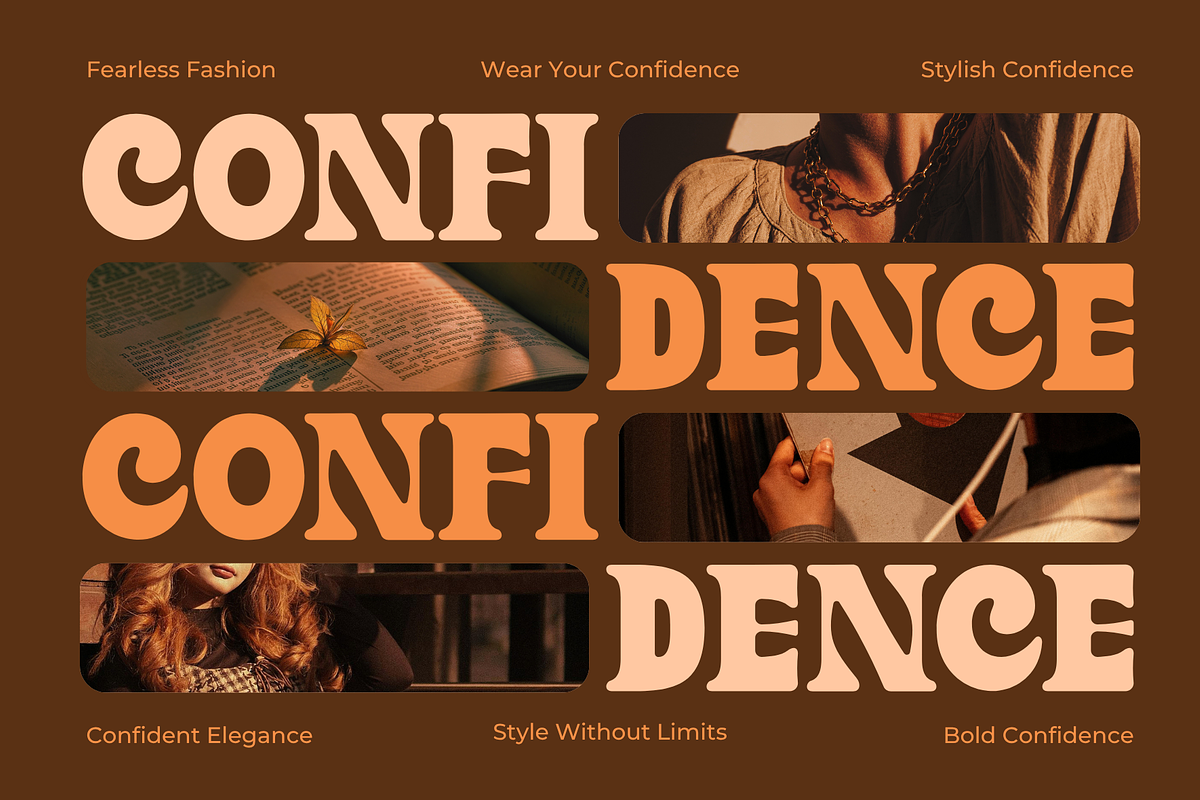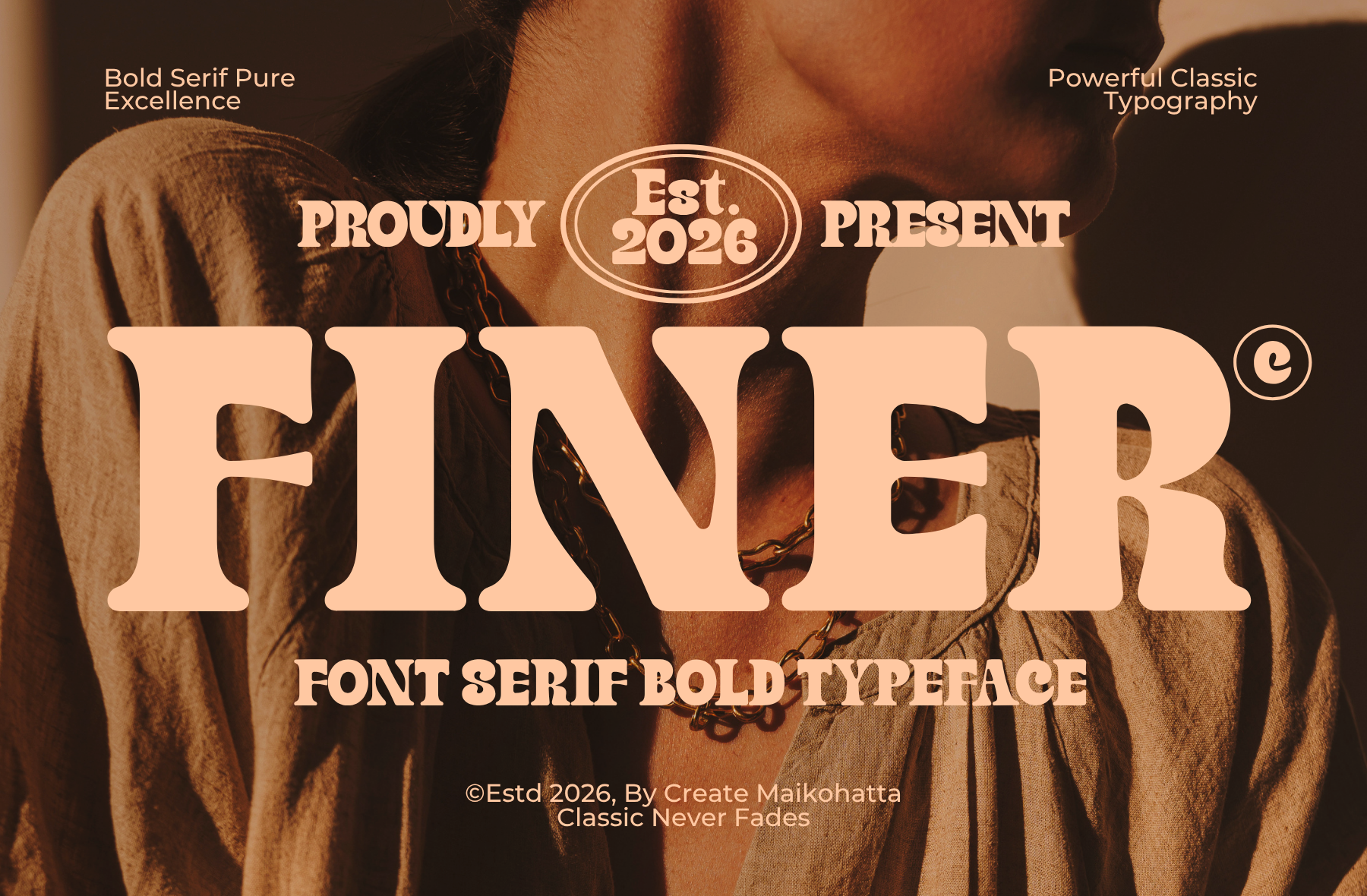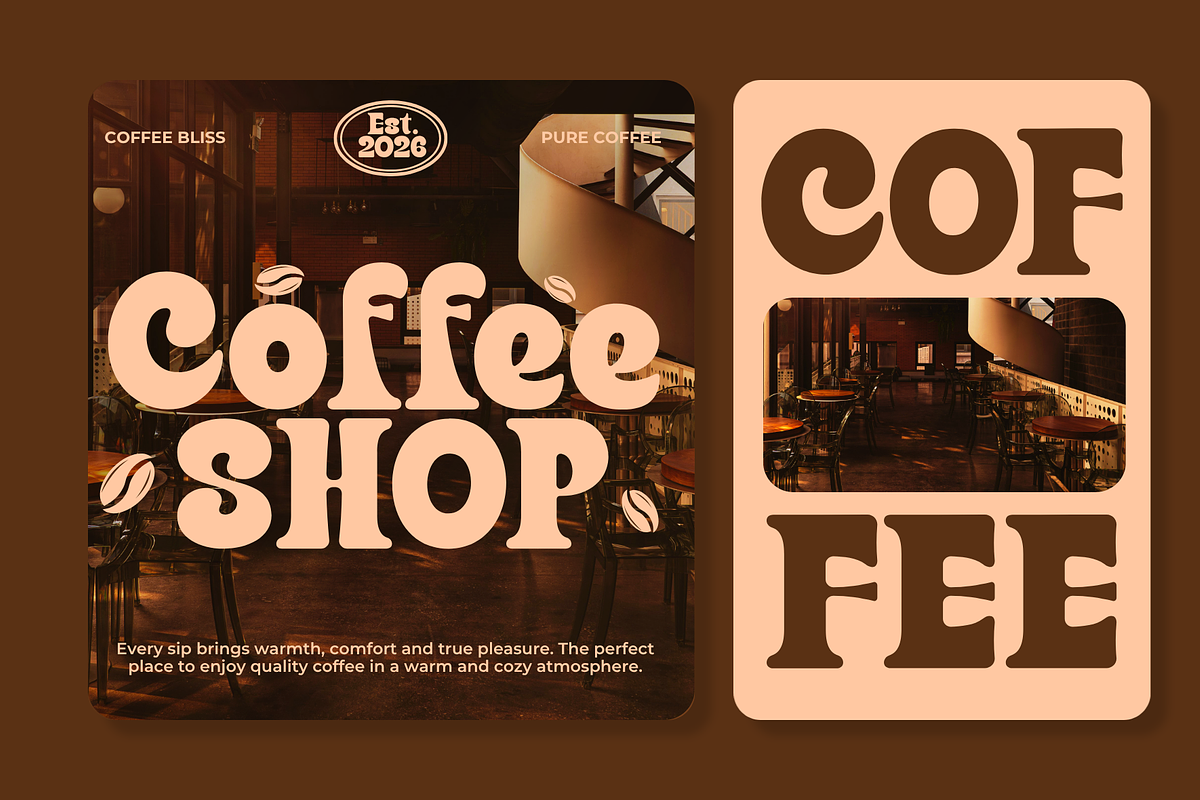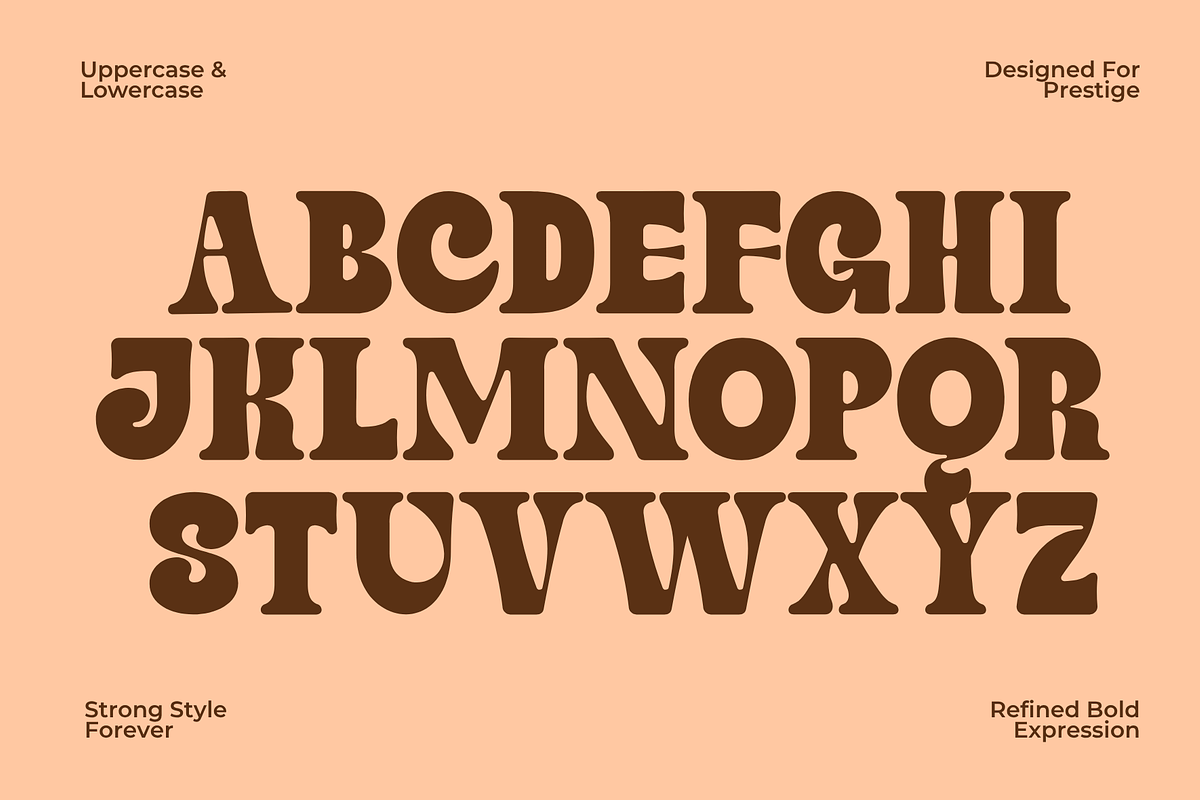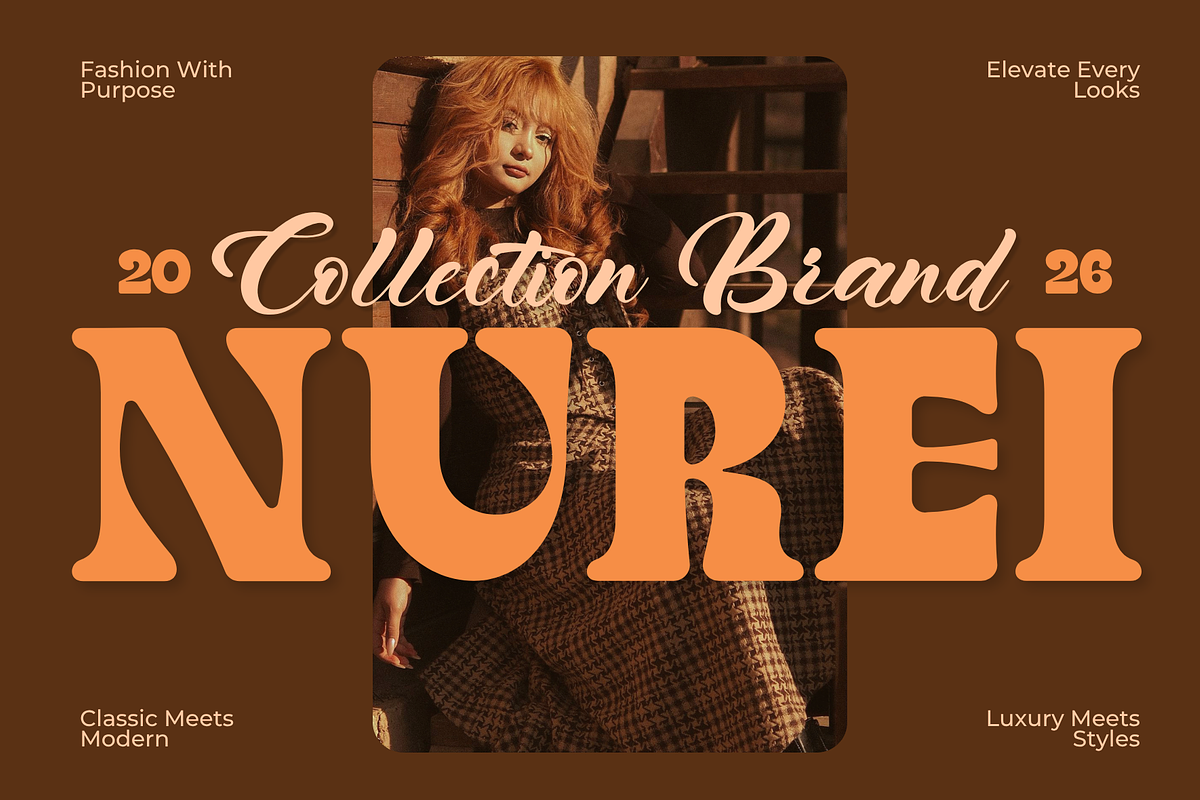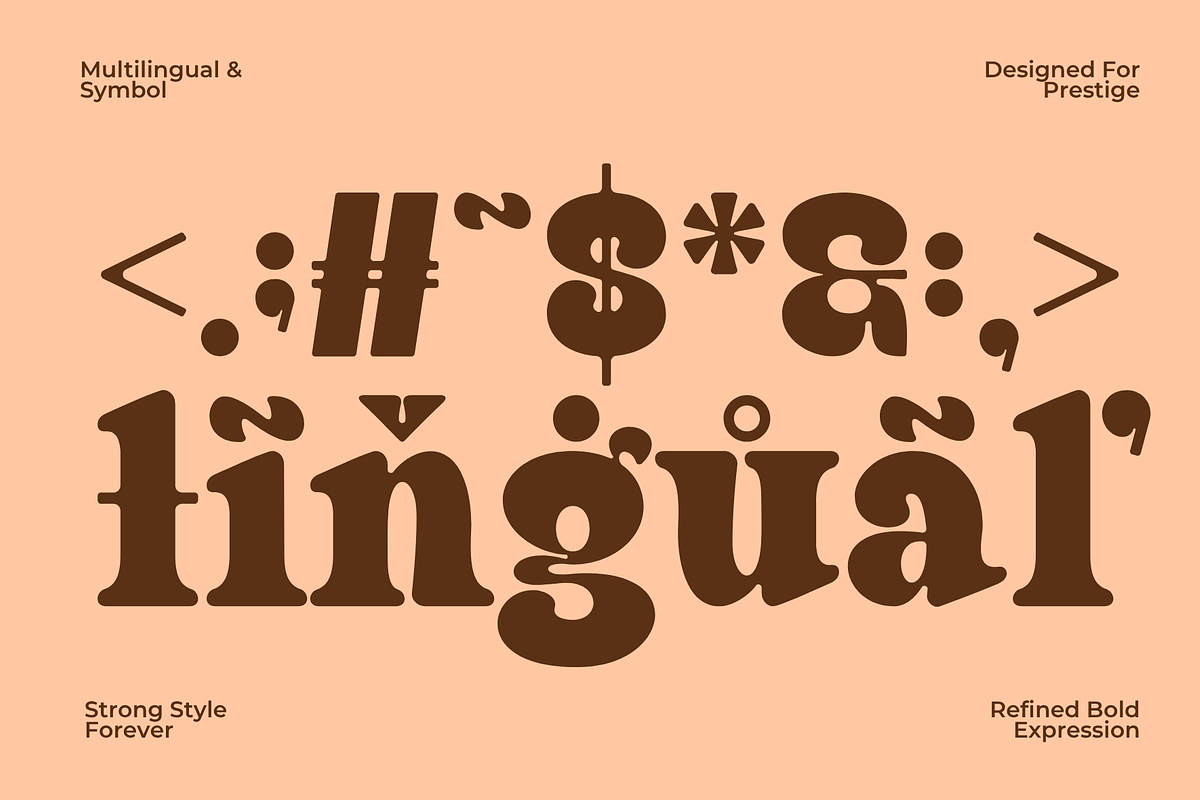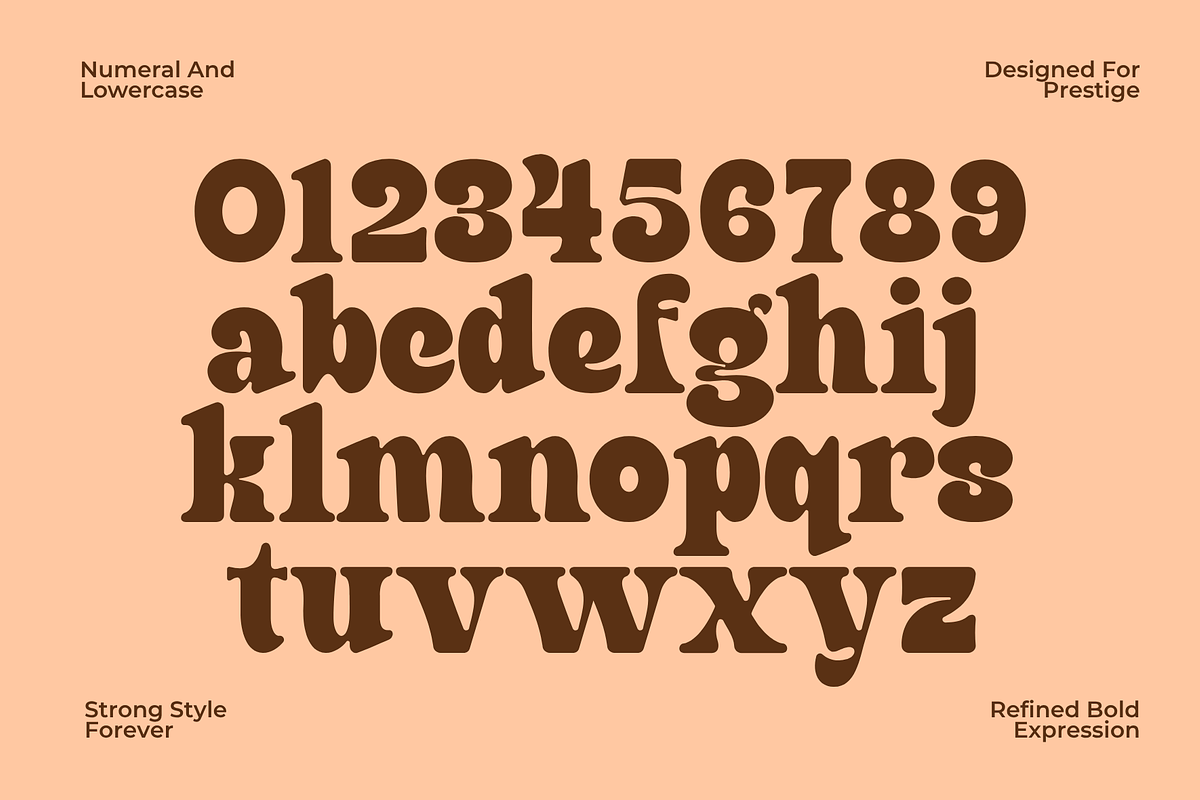
Finer – Classic Bold Serif Typeface
Finer is a bold classic serif typeface that blends timeless elegance with strong vintage character. Featuring thick letterforms, smooth curves, and refined serifs, this font delivers a powerful visual presence while maintaining exceptional readability. Inspired by classic editorial typography and heritage branding, Finer is designed to make every headline stand out.
Whether you're creating luxury branding, premium logos, vintage packaging, magazine covers, apparel graphics, whiskey labels, restaurant branding, or eye-catching posters, Finer brings sophistication and confidence to every design. Its bold personality makes it perfect for projects that demand a distinctive and memorable look.
* Uppercase
* Lowercase
* Multilingual
* Ligature